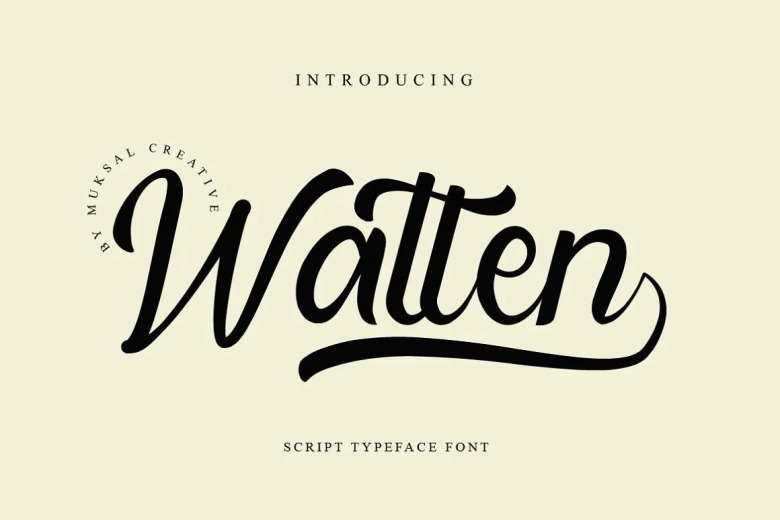
Watten Font
Watten is a script font with handwritten calligraphy style. The Watten font made with digital brush pen strokes that making this font look authentic. This font is perfect for fashion brand, wedding invitation, business card, logo brand, signature, and then calligraphy.
Watten Calligraphy Script Font